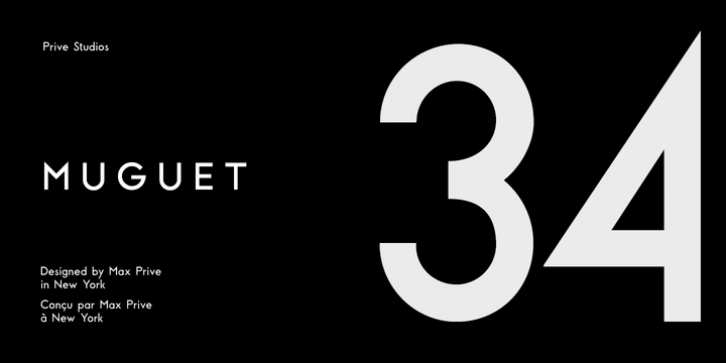
MUGUET is a reinvention of the Skin typeface designed by Max Prive in 2016. MUGUET features reimagined capital letters and improved kerning. It's ultra clean, ultra minimalist with a hint of retro aesthetics.